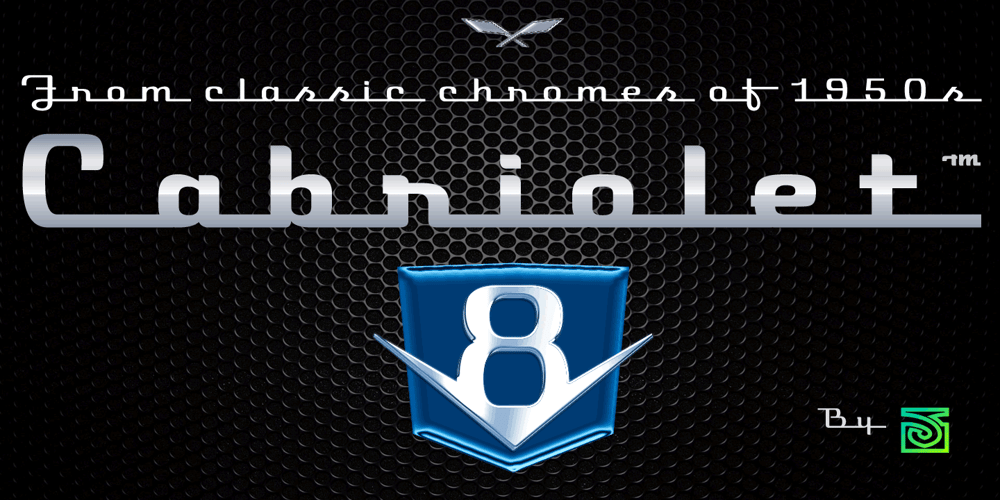
Cabriolet V8 Font Family was designed by John Vargas Beltrán and published by JVB Fonts. Cabriolet V8 contains 3 styles and family package options. Cabriolet V8 is a vertical version of the Cabriolet family, a geometric script fontface re-interpretation inspired by old chromed emblems of 1950s.